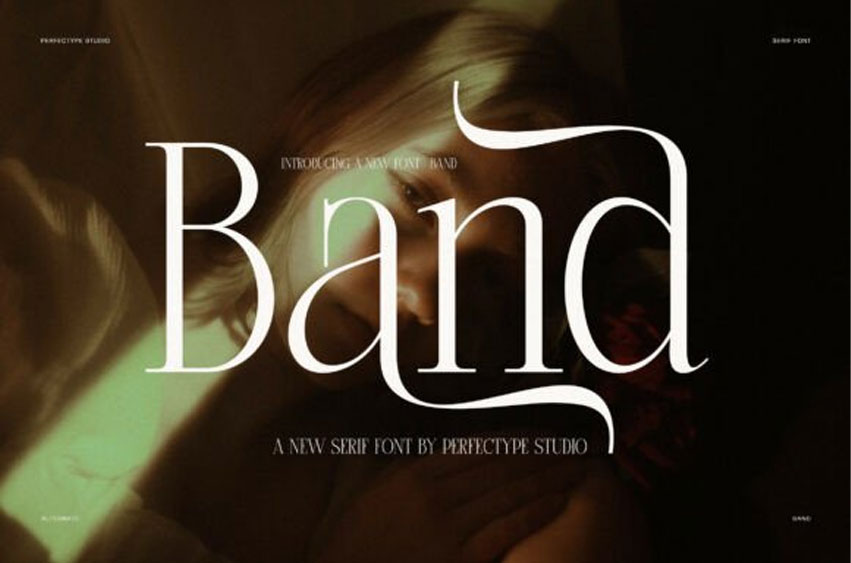
Band Font
Band Font Make a bold statement with “Band”, a chic serif font. Highlighted by sweeping swashes, dramatic alternates, and sophisticated letterforms, this typeface adds dramatic flair and elegance to high-end designs.
Branding: Logo design, boutique branding, product packaging, and signage.
Print & Digital: Book covers, posters, event invitations, and editorial spreads.